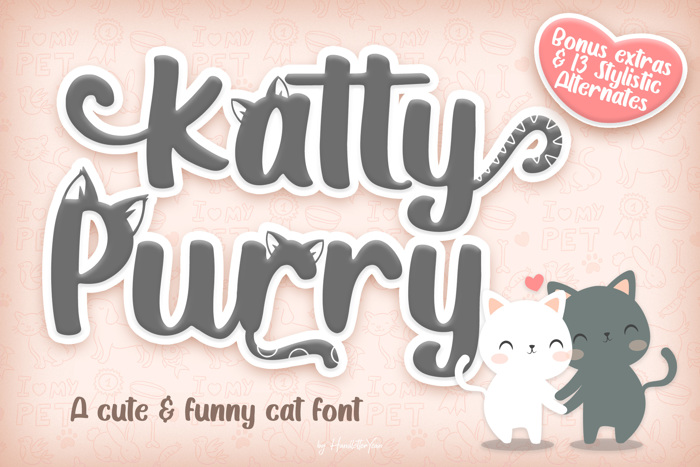
Katty Purry Font
Katty Purry is a cute and funny cat font. This font is big, bold and unique. The handwriting touch will make your project looks more natural and eye-catching also allow you to create stunning design quickly and easily. Feel free to use this font for logos, handwritten quotes, product packaging, header, poster, merchandise, social media & greeting cards, and more.